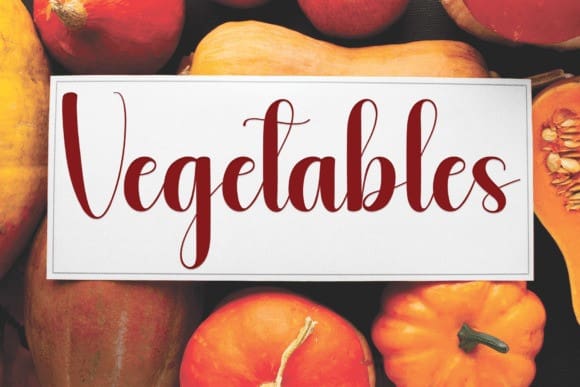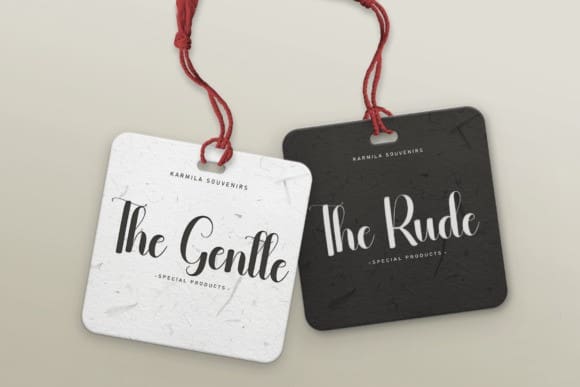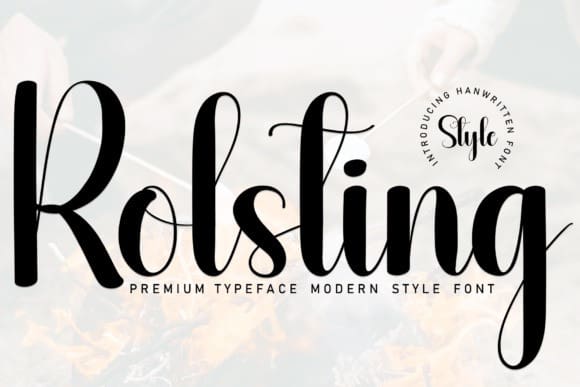
Rolsting Script Font
Rolsting Script Font is a sweet and friendly handwritten font. Fresh and neat, this font is ideal for writing wedding invitations, cards, or any other design that might need a fun touch!